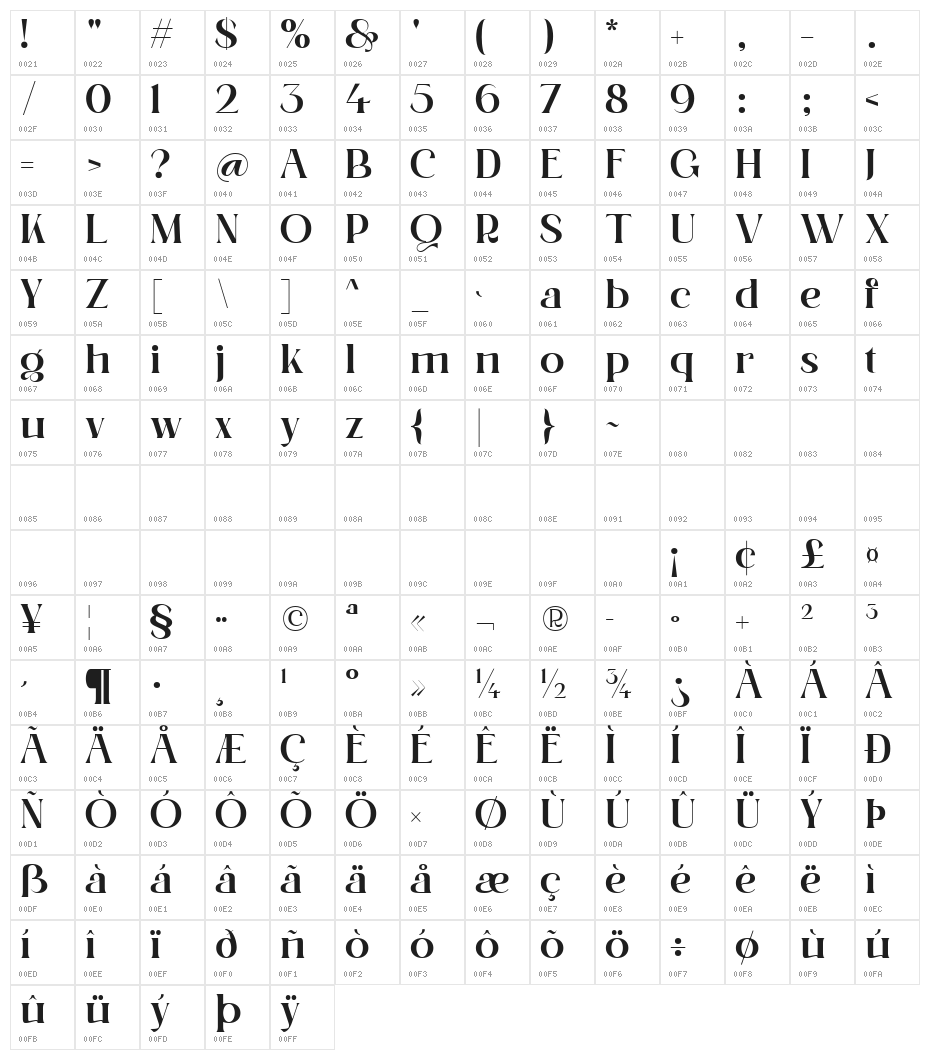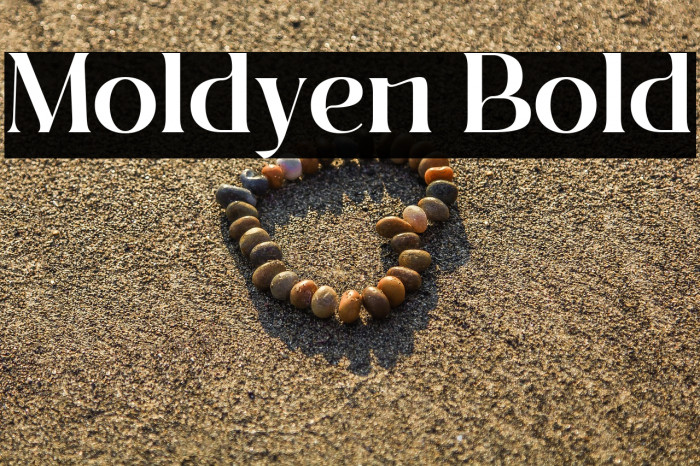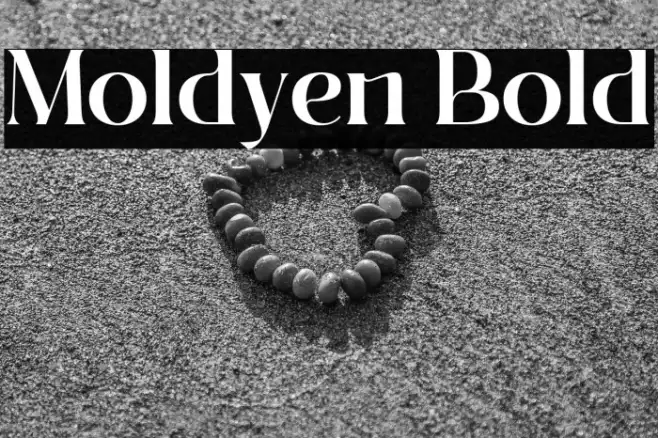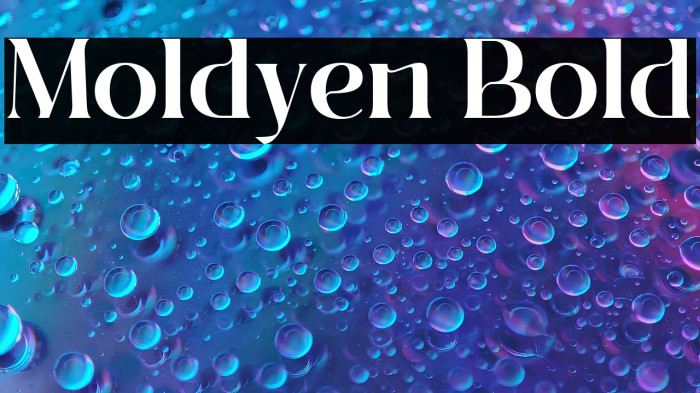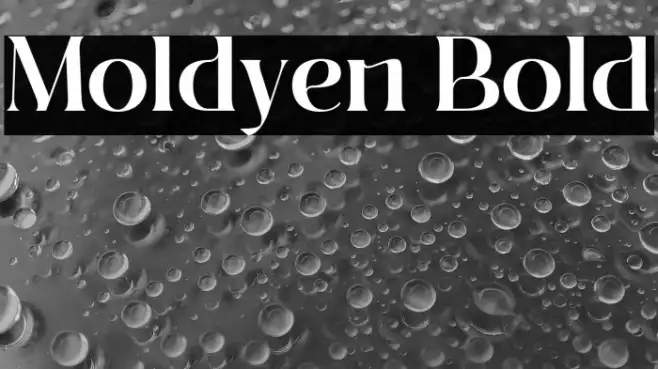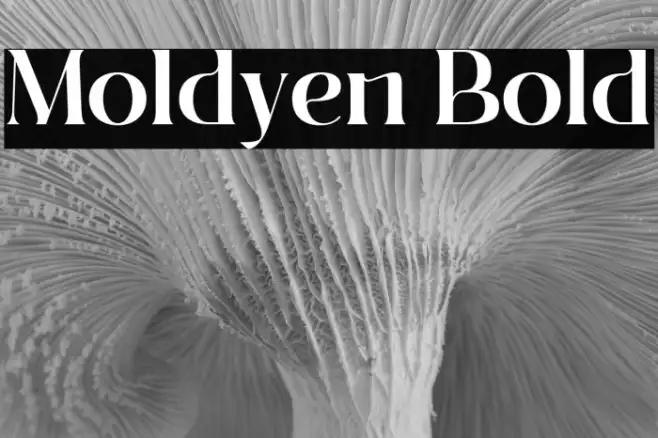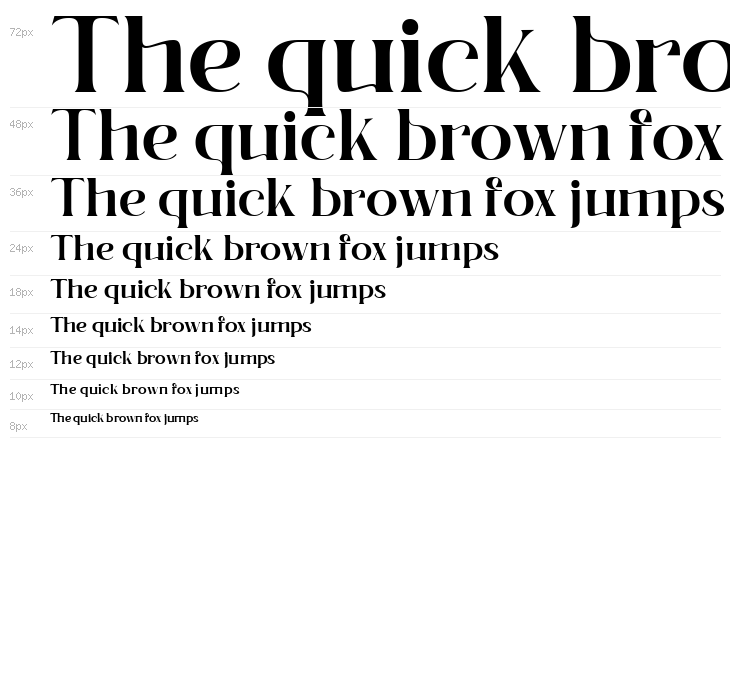
Moldyen Bold Font
Moldyen Bold Description
This font exhibits a bold and elegant style with a high contrast between thick and thin strokes, giving it a sophisticated and modern appearance. The uppercase letters are tall and commanding, while the lowercase letters maintain a harmonious balance with a slightly playful touch. The numerals are distinct and clear, making them easily readable. Special characters are designed with flair, adding to the font's decorative appeal. Overall, this font combines traditional serif elements with a contemporary twist, making it versatile for various design needs.